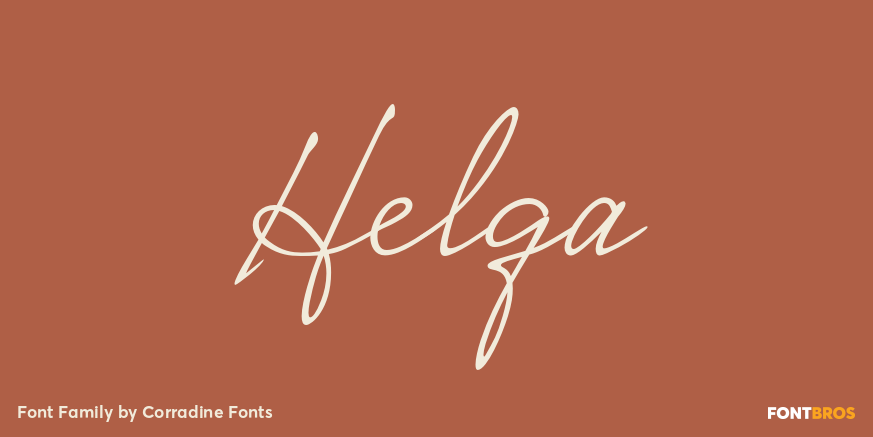
HomeFont BrosHandwrittenHelga HandwrittenScripts: Casual Helga FacebookXPinterestWhatsApp 1 of 1 About Helga Based in the handwriting of Helga Mora, Manuel Corradine\’s mother.  DOWNLOAD ON FONT BROSThis font is sold and delivered by Font Bros. Font Canyon may earn a commission if you buy through this link. People also explored Signature Font Evallia Font Manggo Sunrise Font Gardarena Font Gatra Font Start Up Font Loraida South Rose Font Limonata Font 281 0 TagsHelgaHelga Font Previous articleCerafinoNext articleFunghi Mania LEAVE A REPLY Cancel reply Comment: Please enter your comment! Name:* Please enter your name here Email:* You have entered an incorrect email address! Please enter your email address here Website: Save my name, email, and website in this browser for the next time I comment. Personal Use Free Burnstown Dam Personal Use Free Read more about this font Glowing Personal Use Free Read more about this font Huntry Personal Use Free Read more about this font Engebrechtre Personal Use Free Read more about this font BLOG Using Fonts in Digital Marketing: Tips to Strengthen Your Brand Identity In the realm of digital marketing, every visual element plays a crucial role in shaping a brand's identity, and fonts are no exception. The... Elegant Wedding Invitation Fonts – Handwritten & Script Fonts How to Install and Use Fonts on Windows, macOS, and Web Projects Fonts That Capture the Spirit of New York City